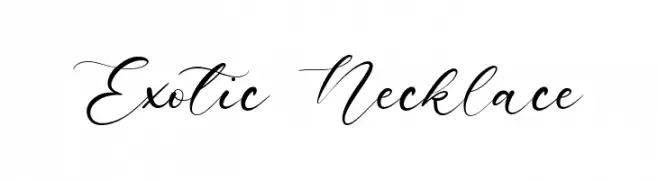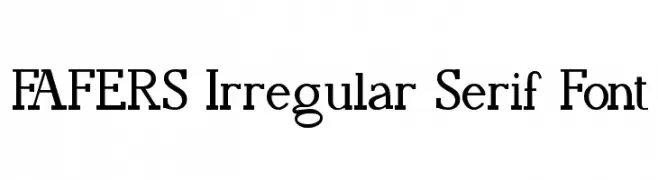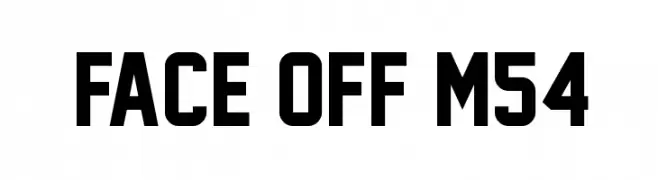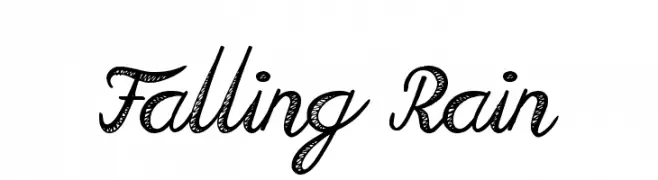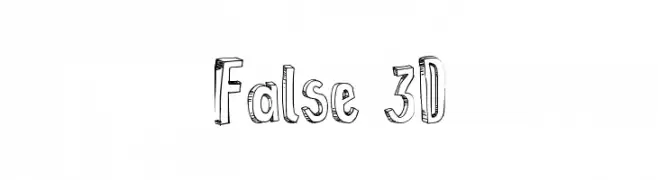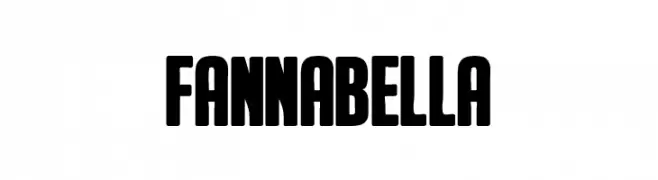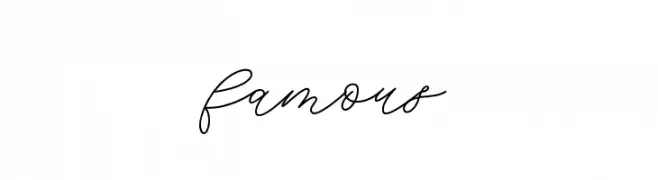
An elegant script font with flowing lines and high contrast, perfect for sophisticated designs.
A bold, handwritten font with dynamic strokes and a lively appearance.
A bold, modern font with geometric shapes and consistent stroke width.
A classic serif font with unique irregularities, offering a handcrafted feel.
An elegant, cursive font with flowing curves and ornate flourishes.
A dynamic, hand-drawn script font with textured, flowing letters.
A playful, hand-drawn font with a 3D sketch effect.
An elegant, flowing script font with a handwritten style.
A bold, blocky font with a modern aesthetic, perfect for impactful headlines.